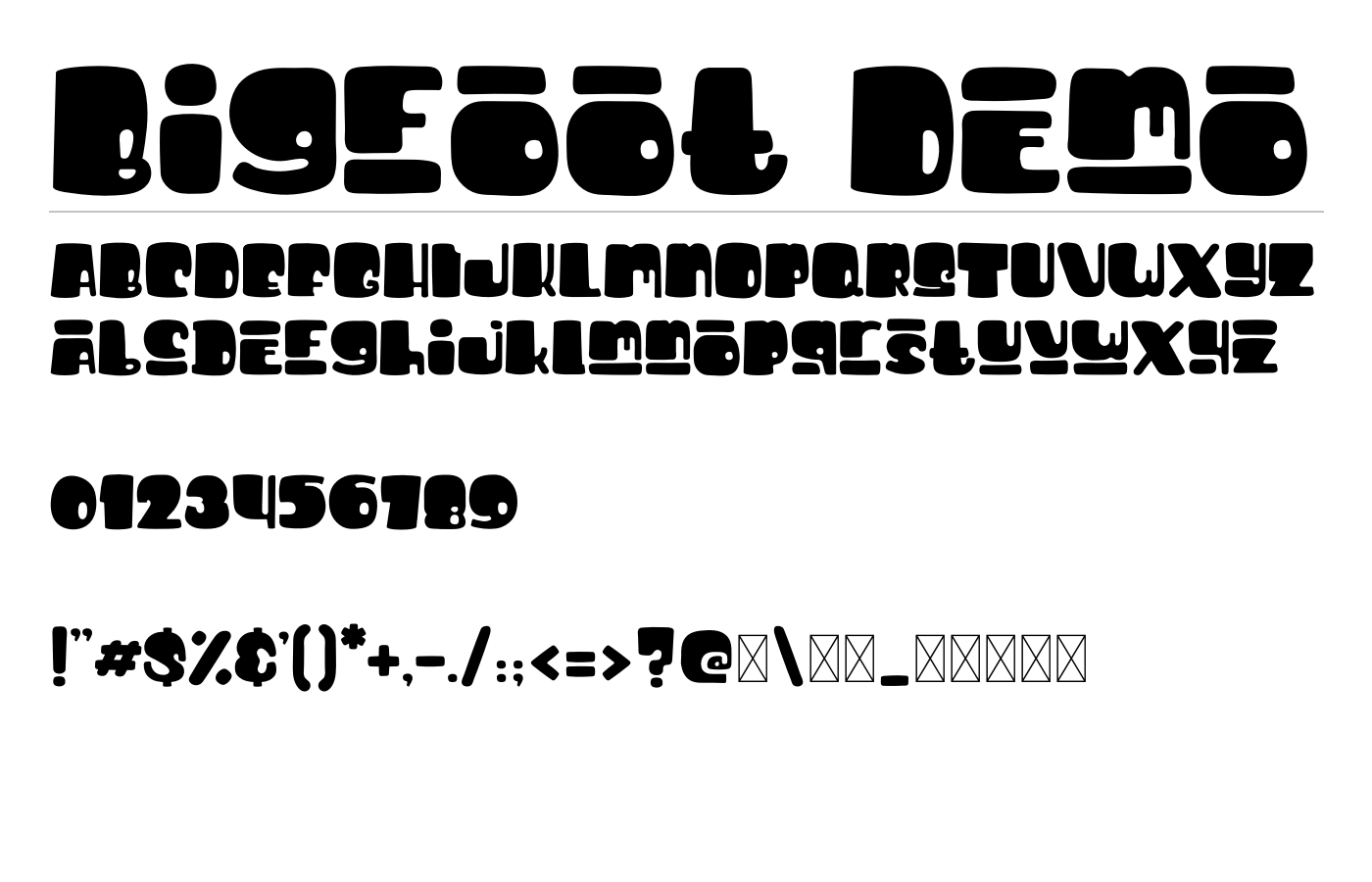
Bigfoot Demo is a bold, quirky sans serif font with a playful and chunky design that features irregular, rounded letterforms and a distinctive retro vibe. Its heavy weight and wide proportions make it perfect for eye-catching headlines, logos, and creative projects that seek a fun and unconventional personality. This font works well in branding and display uses where a strong, friendly, and informal impression is desired.
Bigfoot Demo Font
About Bigfoot Demo Font
| Font family | Bigfoot Demo Font |
| Designer | Rudy Muhardika |